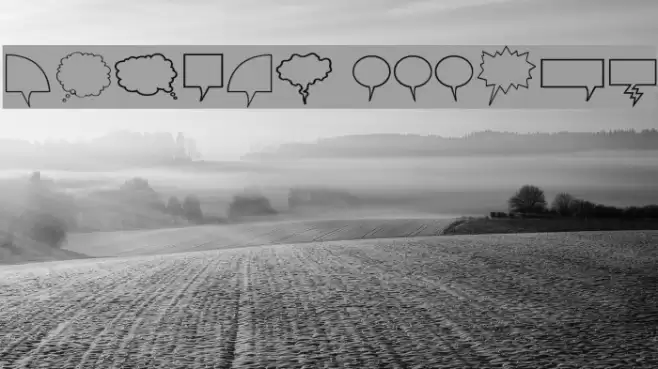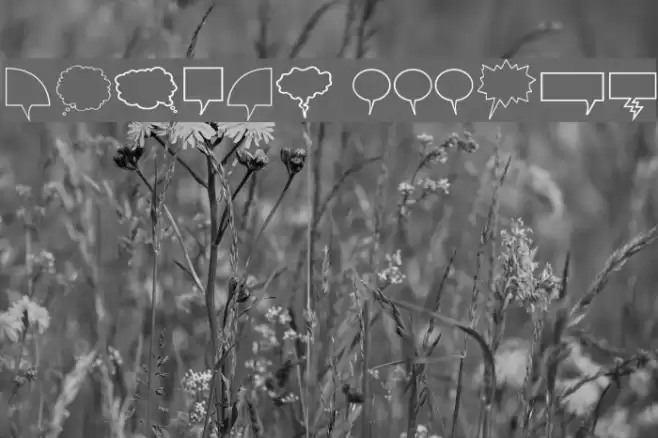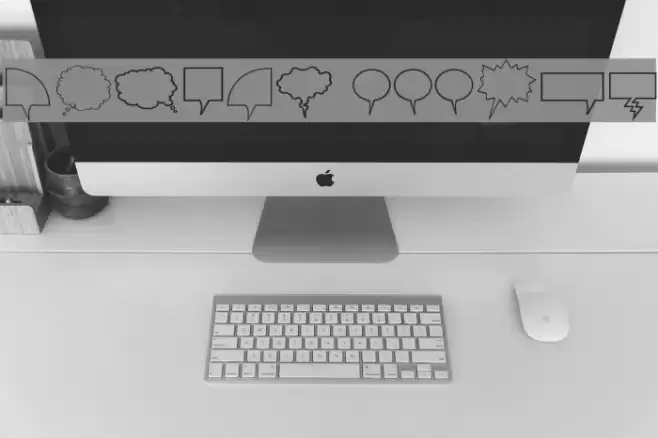
Komika Bubbles Font
Komika Bubbles Description
A collection of outlined comic-style speech and thought bubbles in various shapes, including round, rectangular, jagged, and cloud-like forms, all with clean, uniform black lines and no fill.
Outlined comic speech and thought bubbles in diverse shapes from Uncategorized fonts.
- Proposed Projects: Comic books, graphic novels, children's books, playful posters, educational materials, digital stickers.
- Overall Style: Playful, Comic, Decorative
- Use Case: Speech bubbles in comics, graphic design accents, playful layouts.